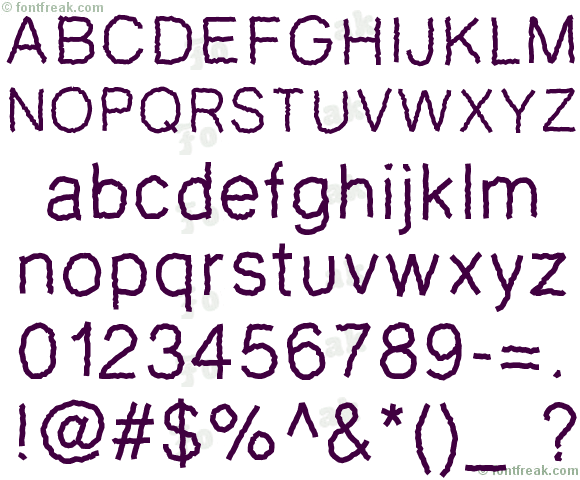
PWZigzagfont
PWZigzagfont by Peax Webdesign is a unique display font that captures attention with its playful, zigzagged strokes. This decorative typeface showcases a distinctive style characterized by uneven edges and a slightly rough texture, creating a dynamic visual appeal. The irregular stroke weight adds an element of whimsy, making it perfect for designs that aim to stand out. With its moderate contrast and casual spacing, PWZigzagfont exudes a relaxed yet engaging vibe, suitable for various creative projects.
This font is particularly well-suited for eye-catching wedding invitations where a touch of personality can enhance the overall theme. It's also an excellent choice for vibrant movie posters that need to convey energy and excitement quickly. Restaurant menus can benefit from its quirky aesthetics, drawing diners' attention to featured dishes in an inviting way. Furthermore, PWZigzagfont can add flair to children's book covers, engaging young readers with its fun and adventurous character. The unique style appeals to graphic designers, small business owners, and content creators looking to infuse their projects with creativity and charm.
By offering a PWZigzagfont font free download, Peax Webdesign ensures that this standout typeface is accessible to anyone looking to elevate their design projects. Whether you're crafting a playful brand identity or a lively promotional piece, this font brings a fresh perspective that resonates with audiences. Its distinctive zigzag pattern, combined with its versatility, makes PWZigzagfont an ideal choice for those wanting to make a memorable impact. Let your creativity flow with this engaging typeface that promises to enhance any design.